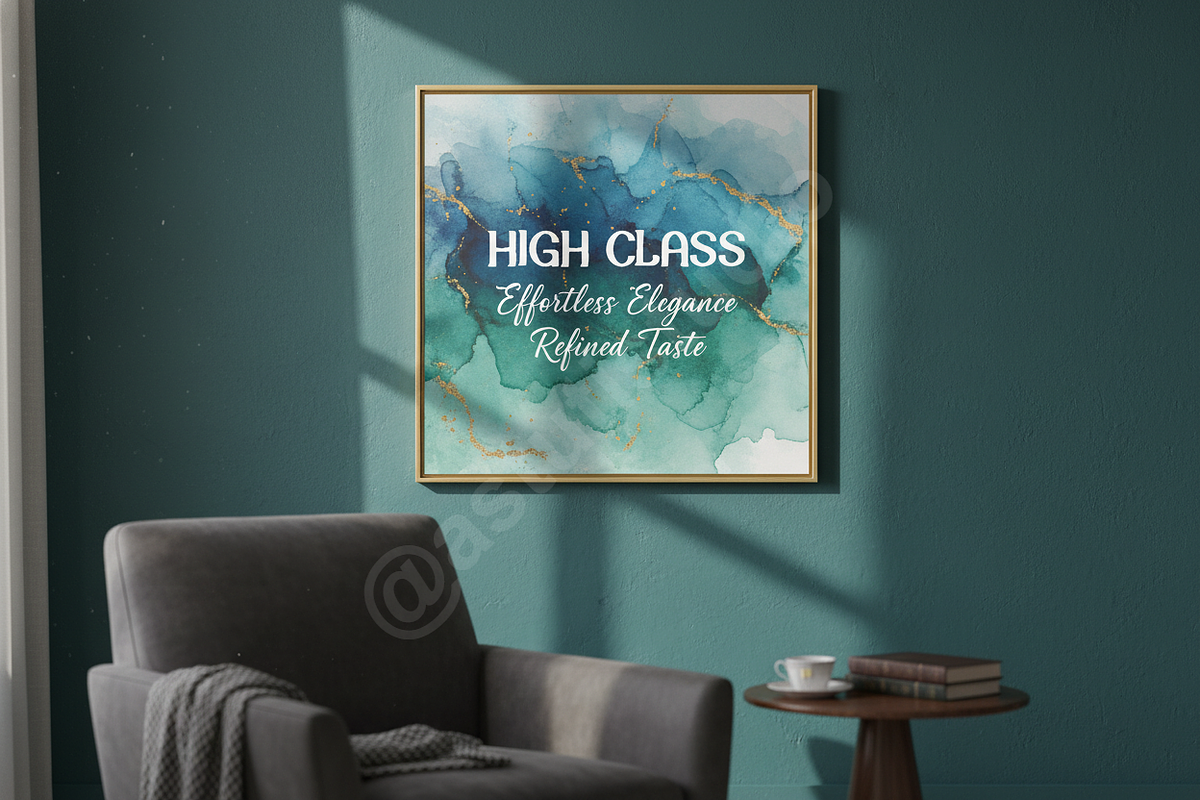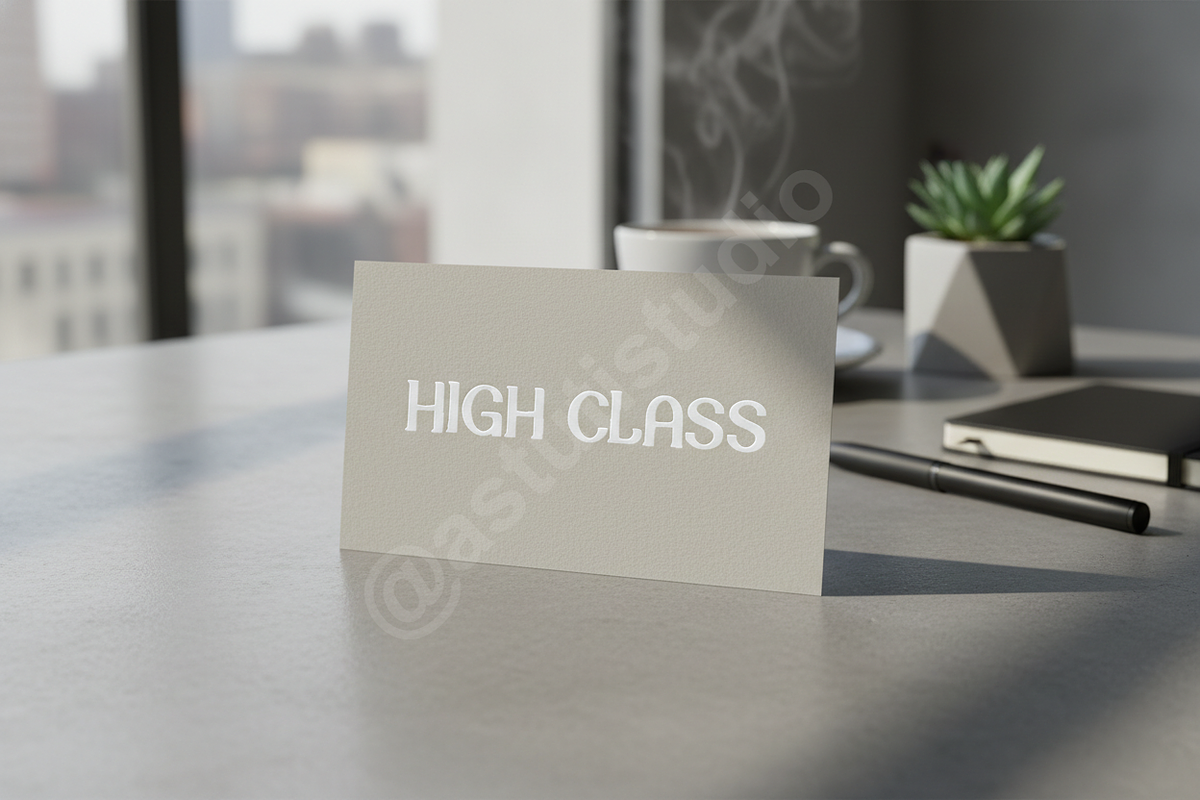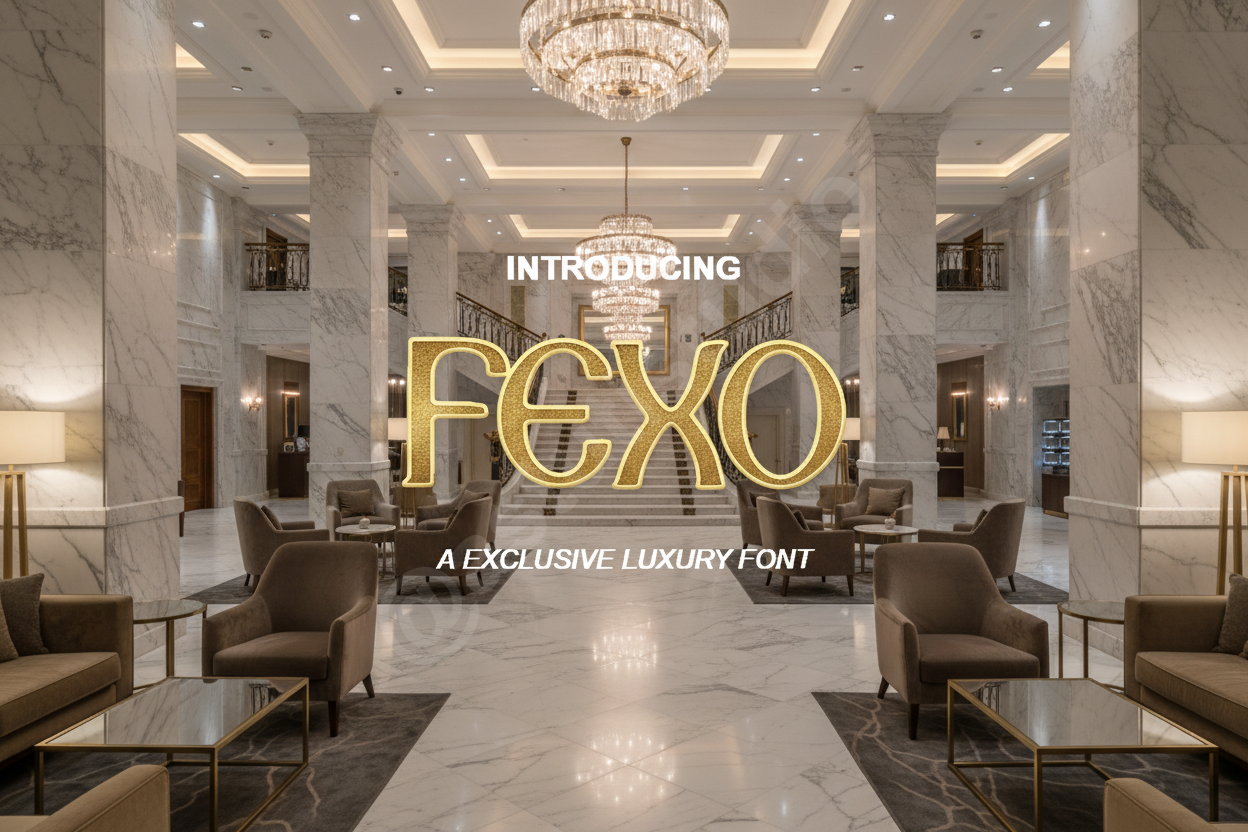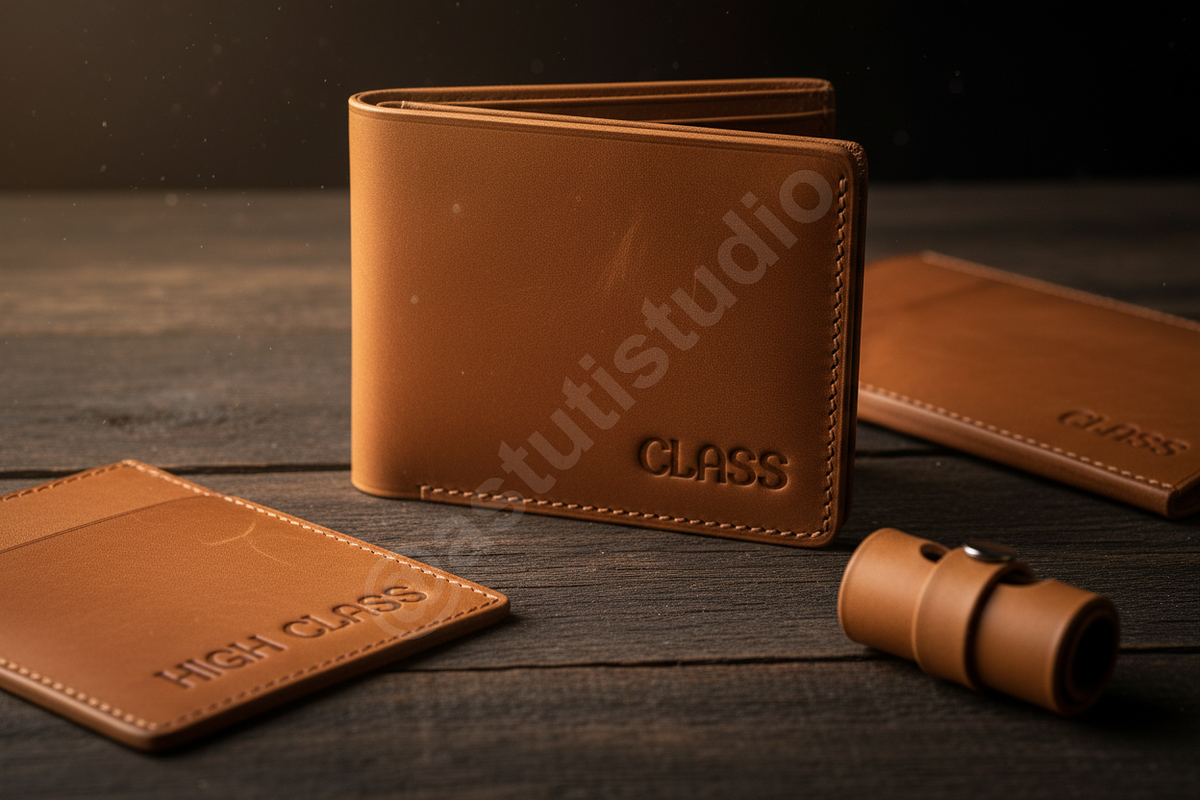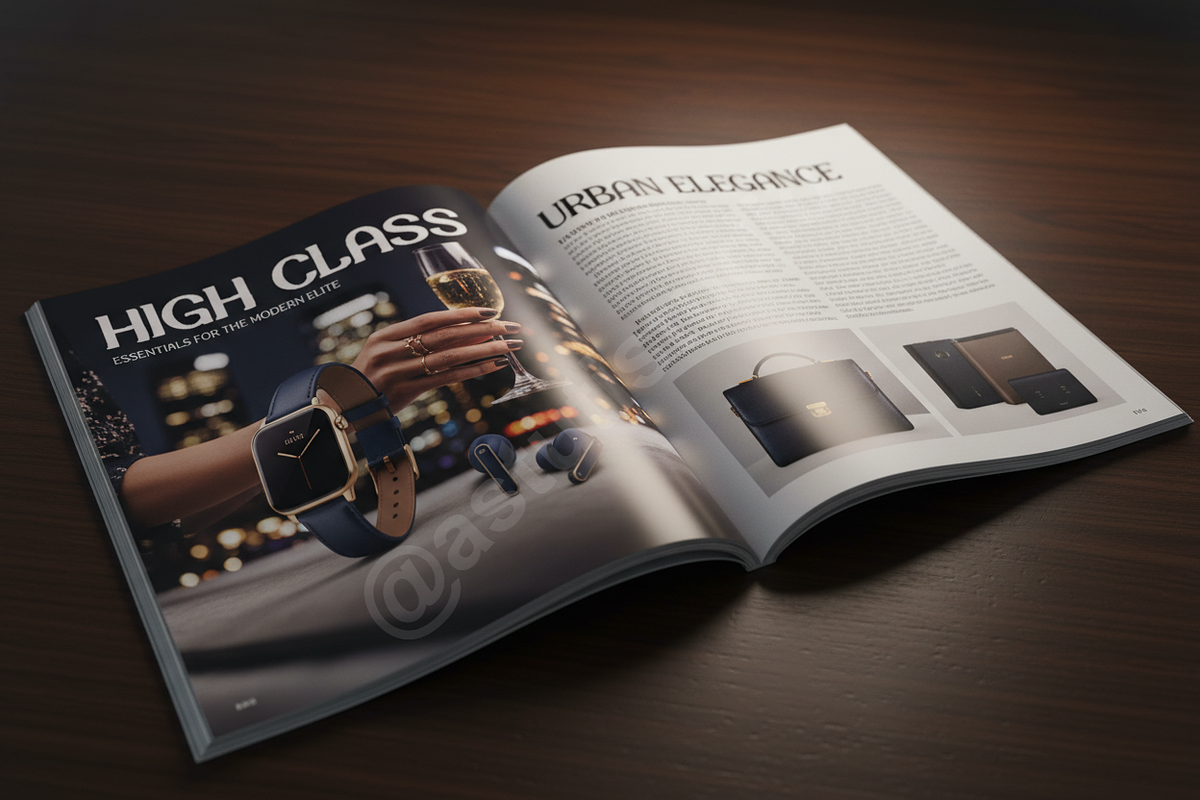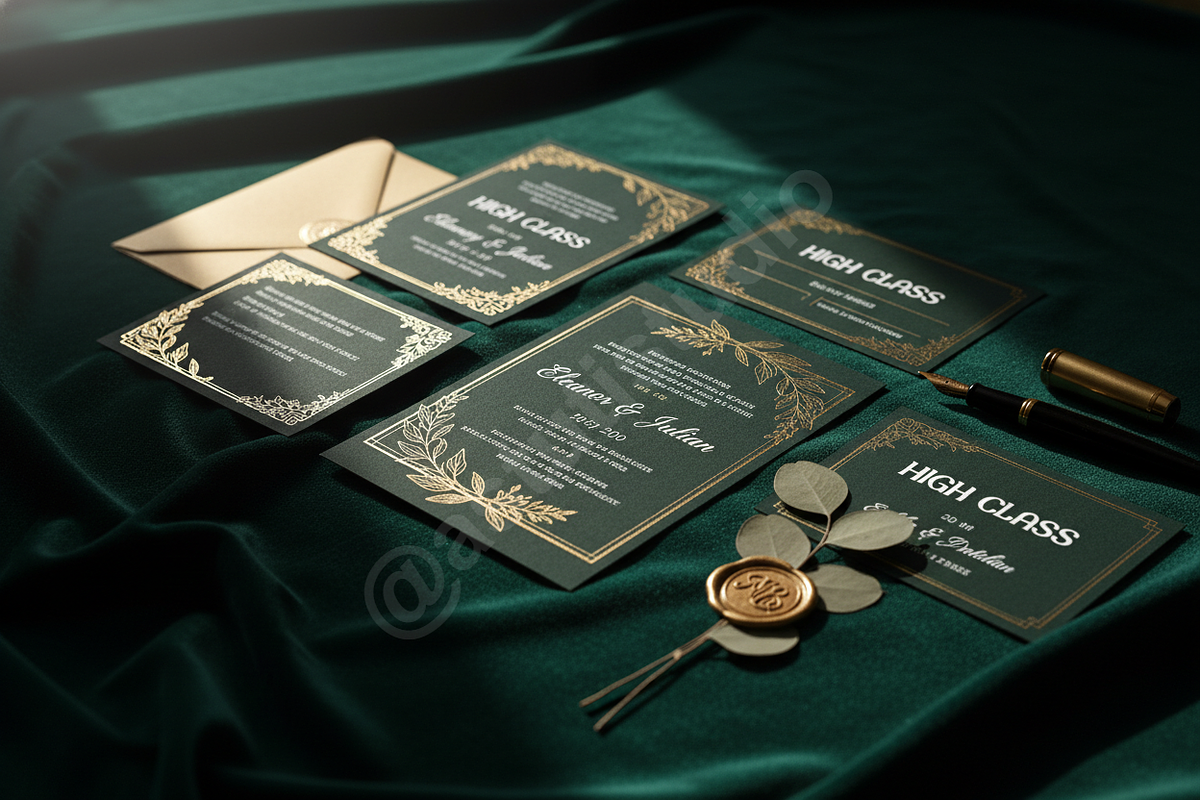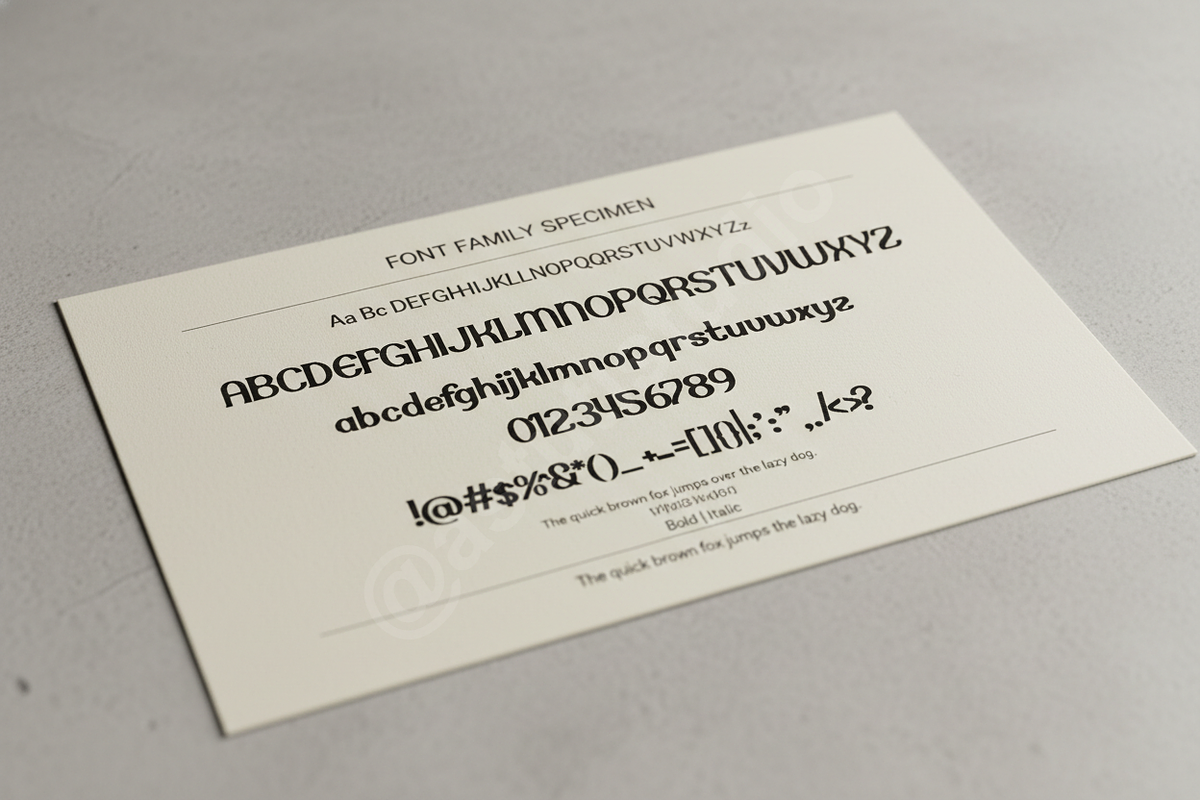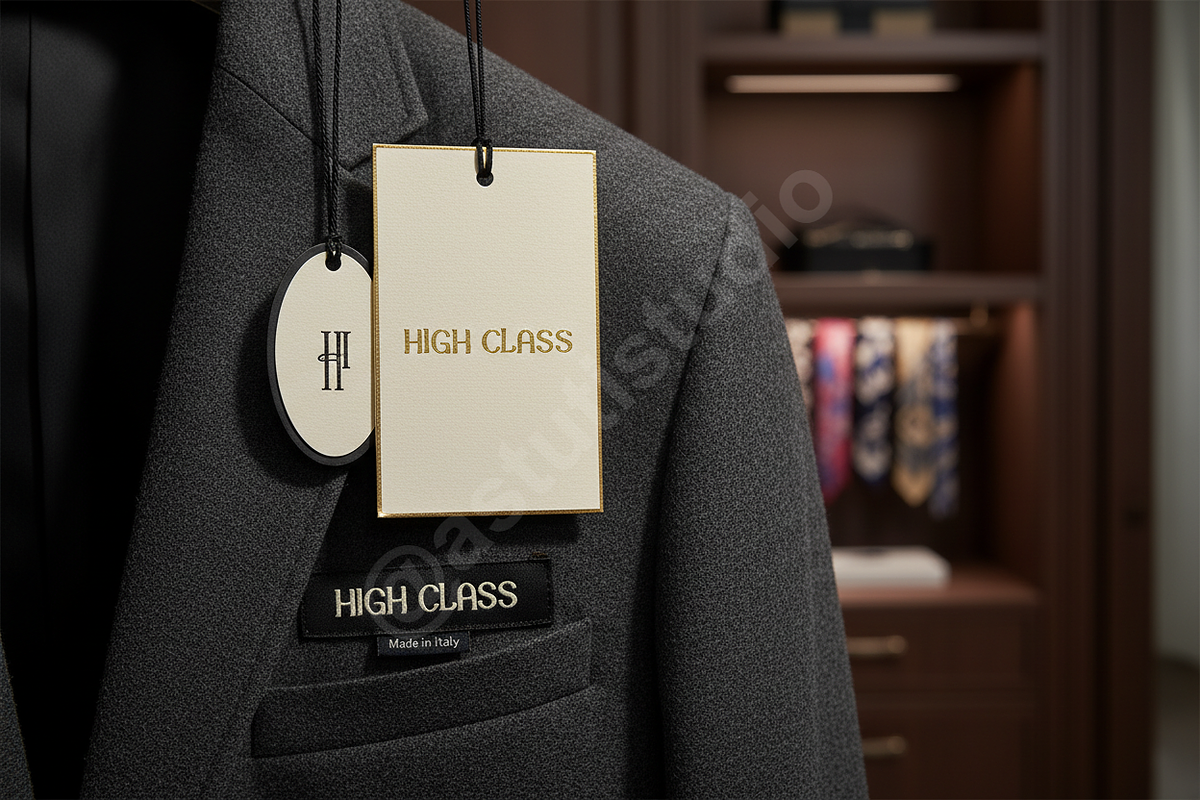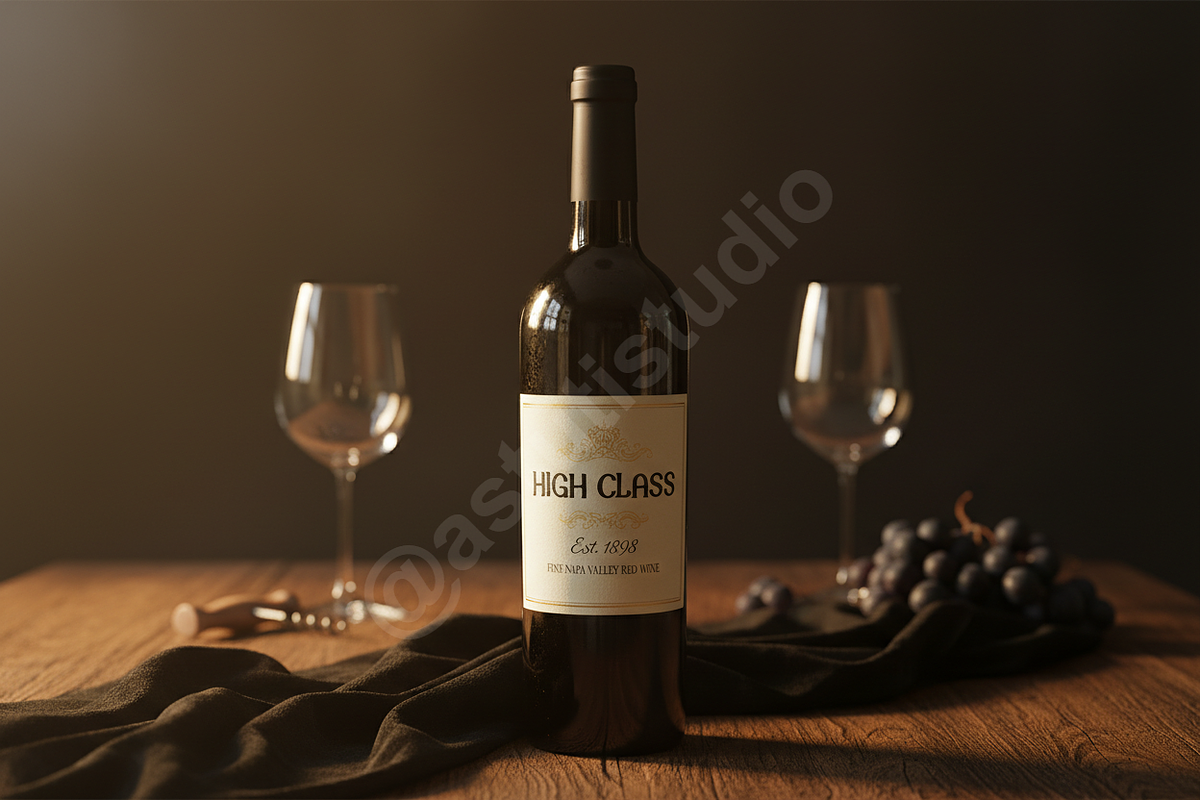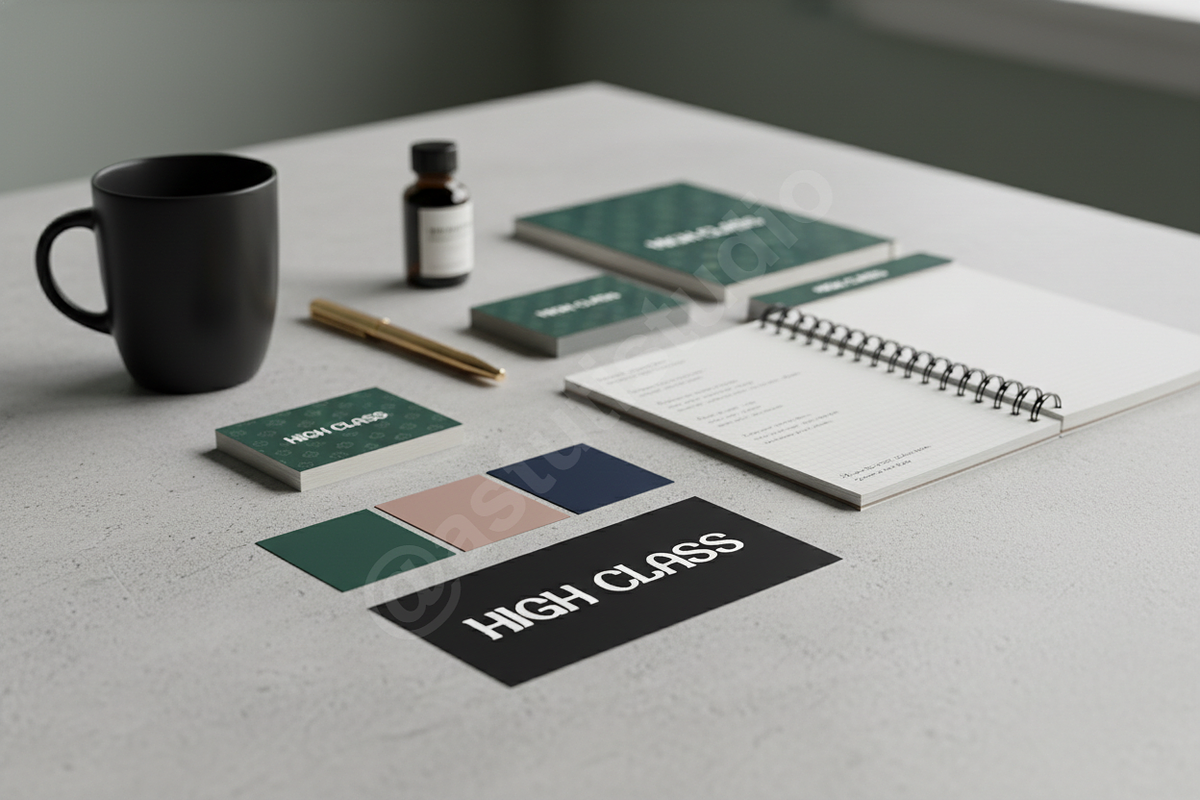
Fexo - Modern Luxury Serif Font for
Fexo is a sophisticated display serif typeface designed for the discerning creative professional. Drawing inspiration from classic high-fashion aesthetics and contemporary minimalist design, Fexo features elegant high contrast strokes and subtle structural details that command attention. It is the definitive choice for projects requiring a touch of refined luxury, instantly elevating your work across digital and print mediums, making it perfect for luxury branding, editorial layouts, and impactful social media campaigns.
- High Contrast Design: Ideal for stunning headlines, logotypes, and large format titles where clarity and impact are paramount.
- Extensive Language Support: Includes full Latin 1 and Latin Extended A characters, ensuring broad international compatibility.
- Opentype Functionality: Access essential ligatures, discretionary ligatures, and stylistic alternates for true custom design options.
- Multi-Platform Versatility: Optimized for seamless performance on web, print, and application interfaces.
- Precision Kerning: Professionally spaced and hinted for flawless readability and aesthetic balance across all sizes.